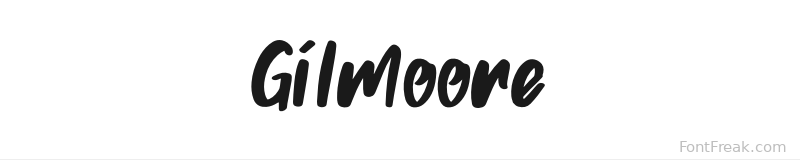
Gilmoore Rough
Gilmoore
Gilmoore Rough is a captivating display font designed by Kong Font, characterized by its bold and slightly distressed appearance. This font falls within the decorative category, showcasing a unique blend of artistic flair and modernity. The stroke weight varies, giving it a dynamic feel, while the rough edges add a touch of personality that sets it apart from more conventional typefaces. With its deliberate spacing and striking forms, Gilmoore Rough is visually engaging, making it an excellent choice for a variety of creative projects.
This font is particularly well-suited for use cases such as branding for artisanal products, eye-catching movie posters, trendy restaurant menus, and striking signage for events or festivals. Its playful yet sophisticated look makes it appealing for graphic designers and small business owners looking to make a memorable impact. Content creators aiming to elevate their visual storytelling will also find Gilmoore Rough to be a valuable addition to their toolkit.
The target audience for this font includes graphic designers, small business owners, and content creators who seek a distinctive typeface that conveys character and style. Its versatility allows it to shine in both digital and print formats, ensuring that any project using this font will stand out.
What makes Gilmoore Rough truly exceptional is its ability to blend a rough, handcrafted aesthetic with modern design principles. This font not only captures attention but also evokes emotion, making it an ideal choice for anyone looking to add a unique flair to their designs. With a Gilmoore Rough font free download available, you can easily incorporate this standout typeface into your next creative endeavor, ensuring that your work is both memorable and impactful.